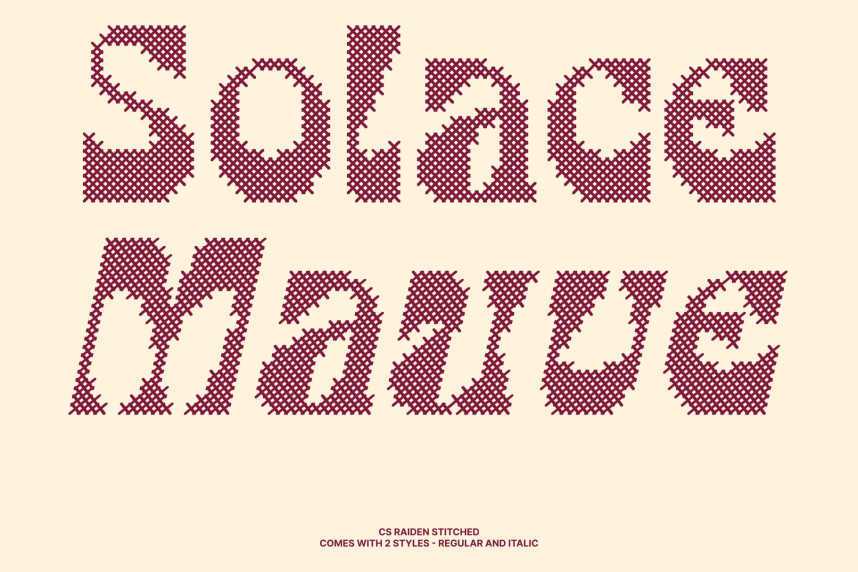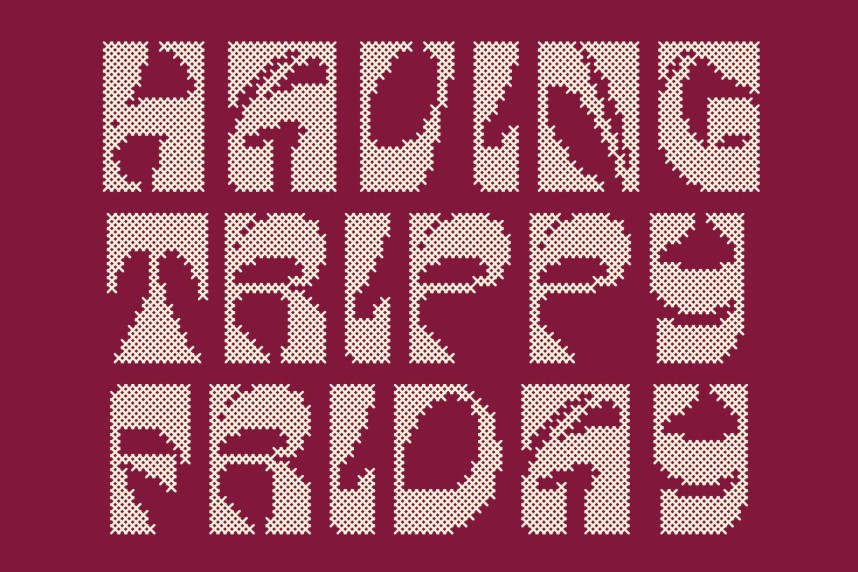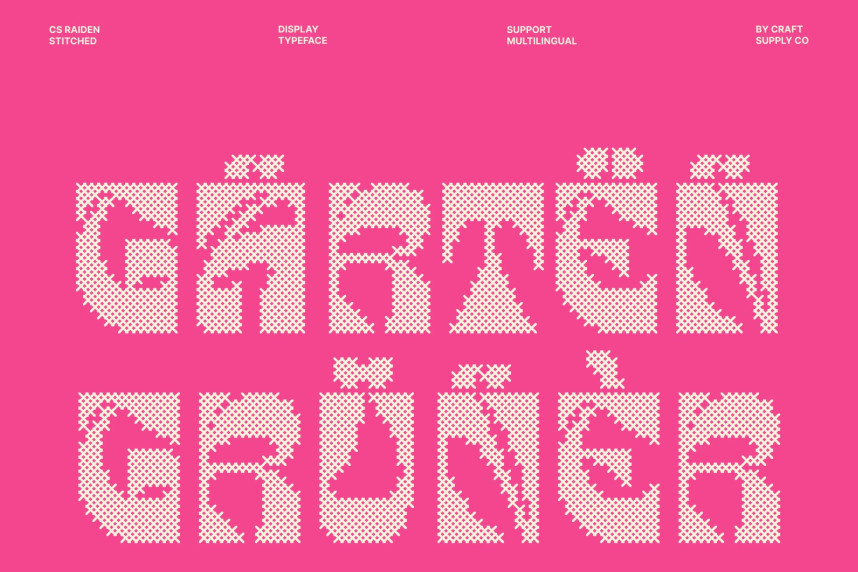
CS Raiden Stitched Font
CS Raiden Stitched Font – Reverse Contrast Font: Bold, Playful, and Striking
Reverse Contrast Display Font with Handcrafted Texture
This is a reverse contrast display font where horizontal strokes are thicker than vertical ones, creating a bold and unconventional visual rhythm. The stitched texture adds a handcrafted feel, enhancing the font’s character with subtle detail while keeping its striking and experimental personality intact.